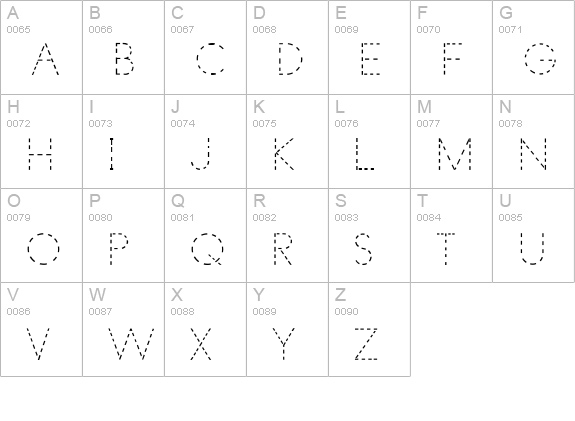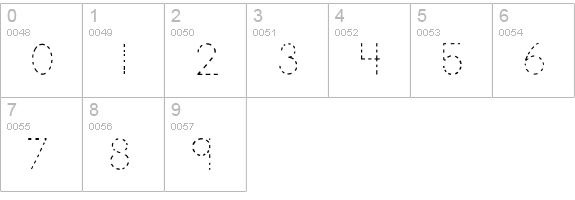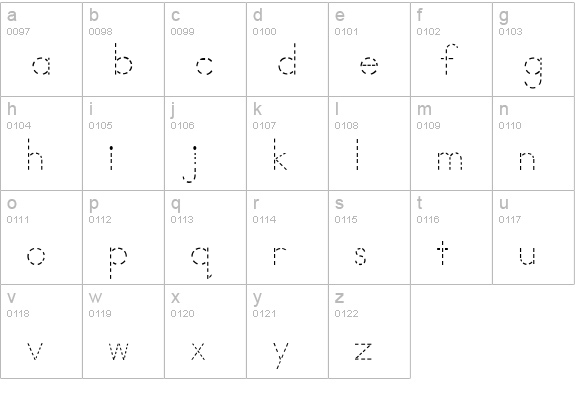
Introducing AbcPrintDotted font, a whimsical and playful typeface perfect for adding a touch of fun to your designs. The dotted style of this font brings a sense of creativity and uniqueness, making it ideal for children's projects, educational materials, or any design that requires a charming and quirky touch. What's even better is that AbcPrintDotted font is available for free download at FontsMarket.com! You can easily access this delightful font and incorporate its dotted charm into your creative projects without any cost. So why wait? Download AbcPrintDotted font today and let your imagination run wild with its playful and eye-catching style.